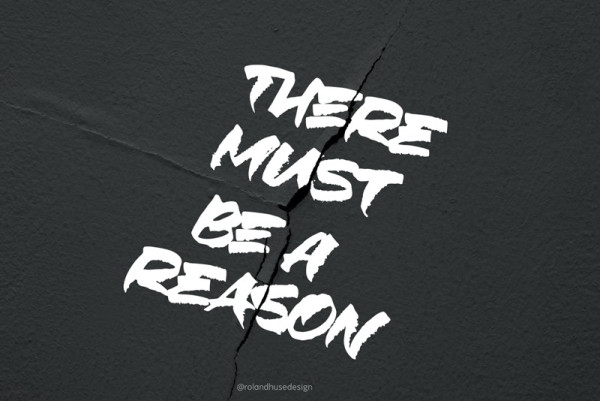
There Must Be A Reason Font
There Must Be A Reason Font, is a tight spaced all caps font. This is a demo version. In place of lowercase letters there are a different version of uppercase letters you can mix them up or choose contextual alternate OpenType feature to alternate between these versions so the text will have a more natural flow and avoid identical letters apes next to each other. For more info, commercial license and full version please visit rolandhuse.com or email